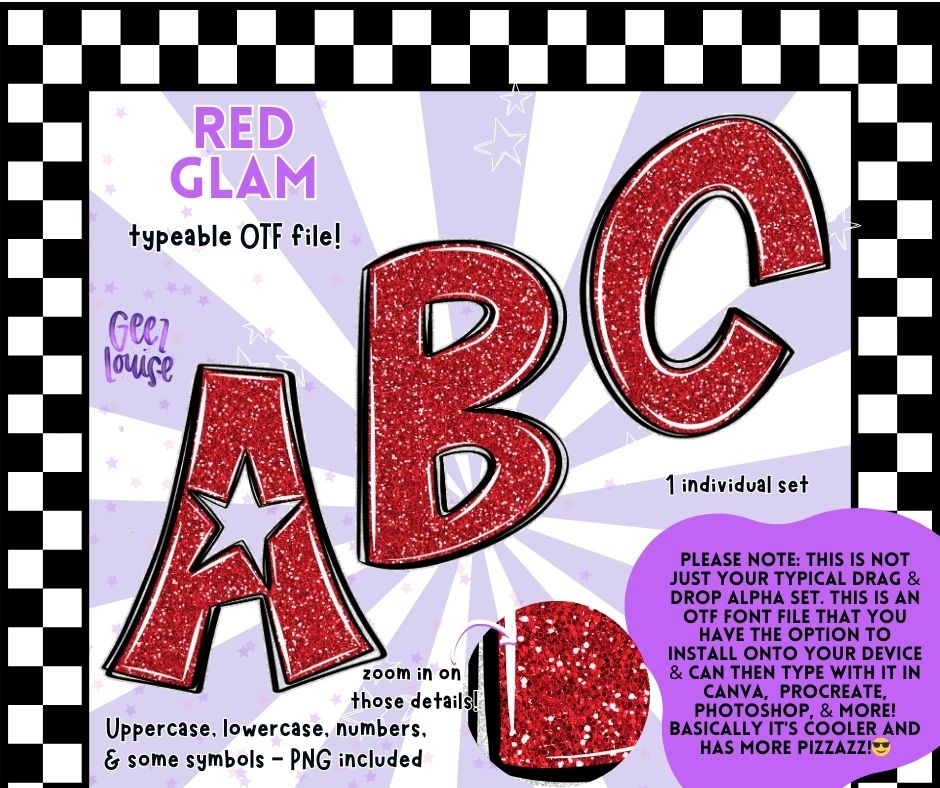
Red Glam - Sparkly OTF Font + PNG Alpha Set
Red Glam is bold, fierce, and impossible to ignore. This glittery red alpha is fully typeable (yep, it’s an OTF font!) and comes with PNGs too—perfect for making standout graphics in Canva, Procreate, Photoshop, and more.
Uppercase + lowercase letters
Numbers + select symbols
This one’s giving Christmas, Valentine’s, 4th of July, or just plain fabulous. 🔥